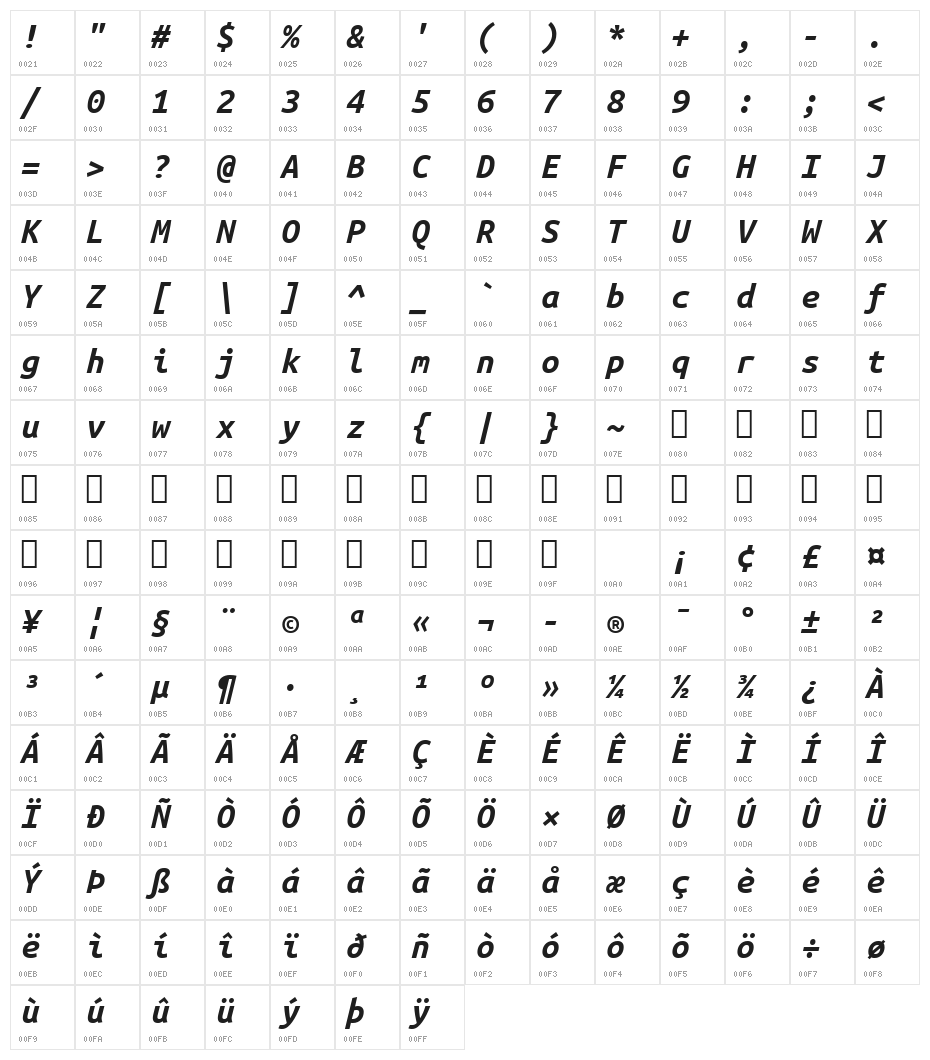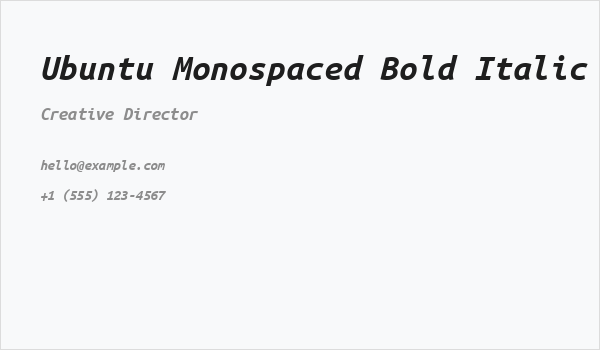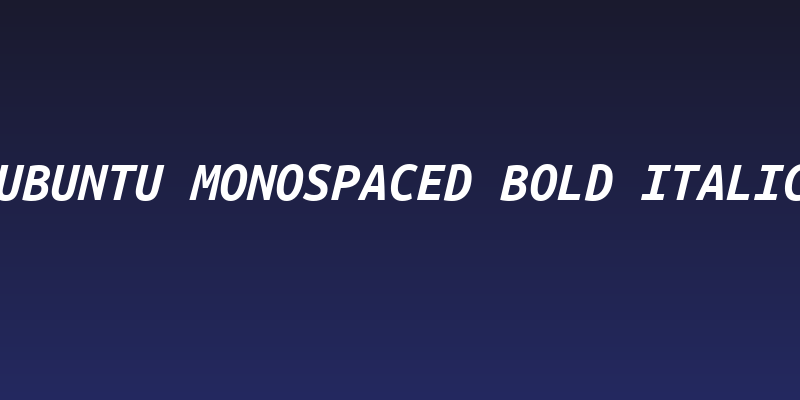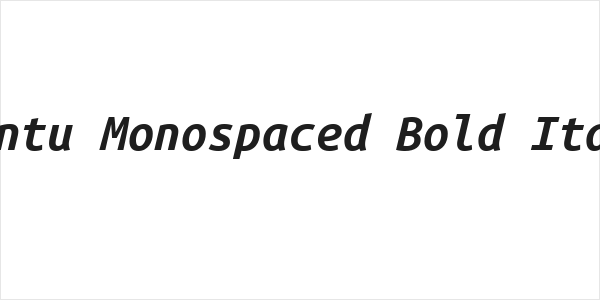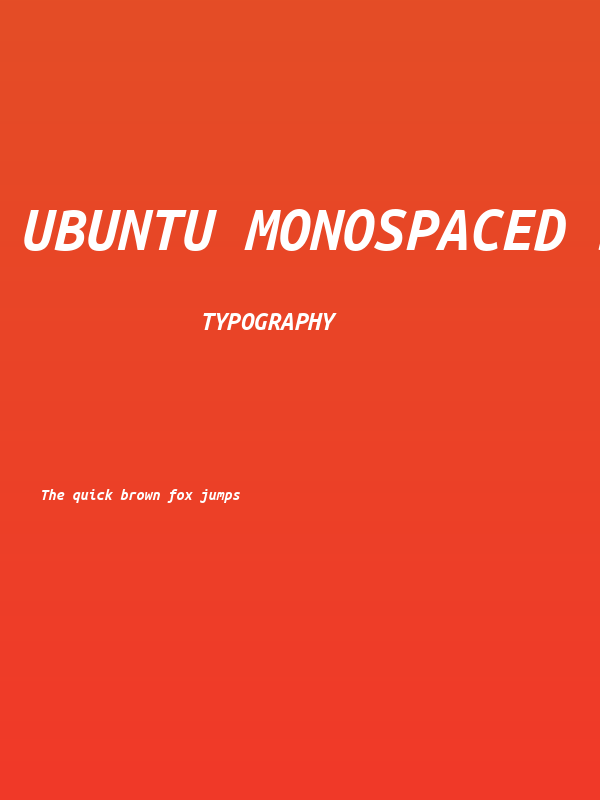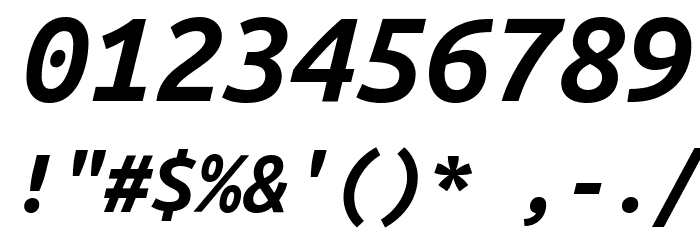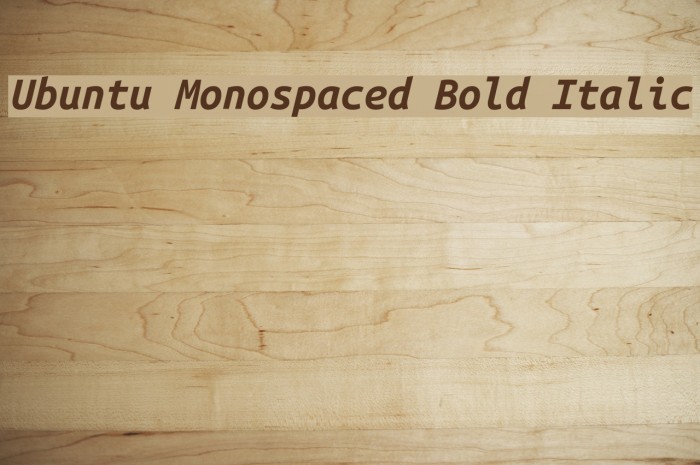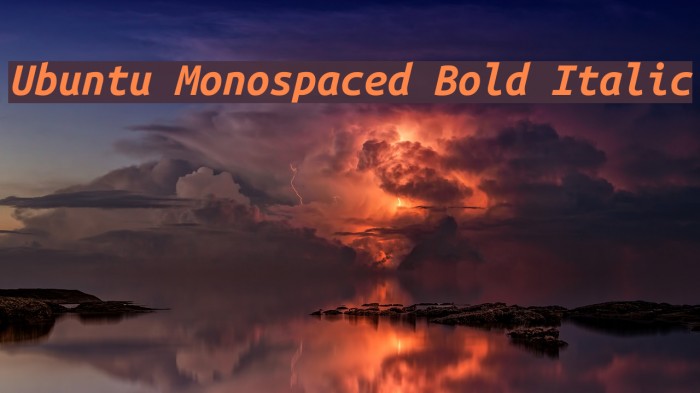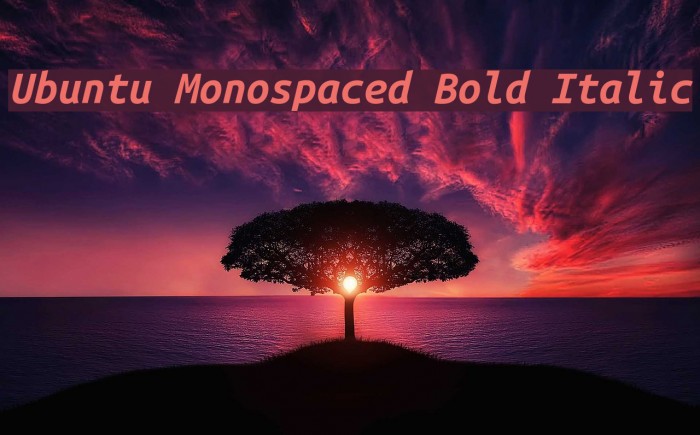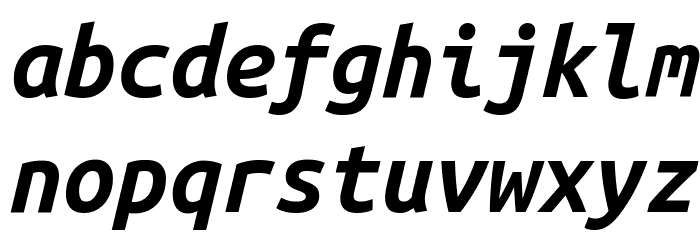
Ubuntu Monospaced Bold Italic Font
Ubuntu Monospaced Bold Italic Description
This font features a monospaced design with a bold and italic style, offering a modern and clean appearance. Each character maintains a consistent width, which is ideal for coding and technical documentation. The bold weight provides strong emphasis, while the italic slant adds a dynamic and forward-moving feel. The characters are well-defined with a medium contrast in stroke thickness, ensuring readability across various sizes. The overall style is contemporary, making it suitable for both digital and print media.
| Use Case | Coding, Technical documentation, Digital media |
| Proposed Projects | Ideal for coding, technical documentation, and any project requiring a modern, monospaced typeface. |